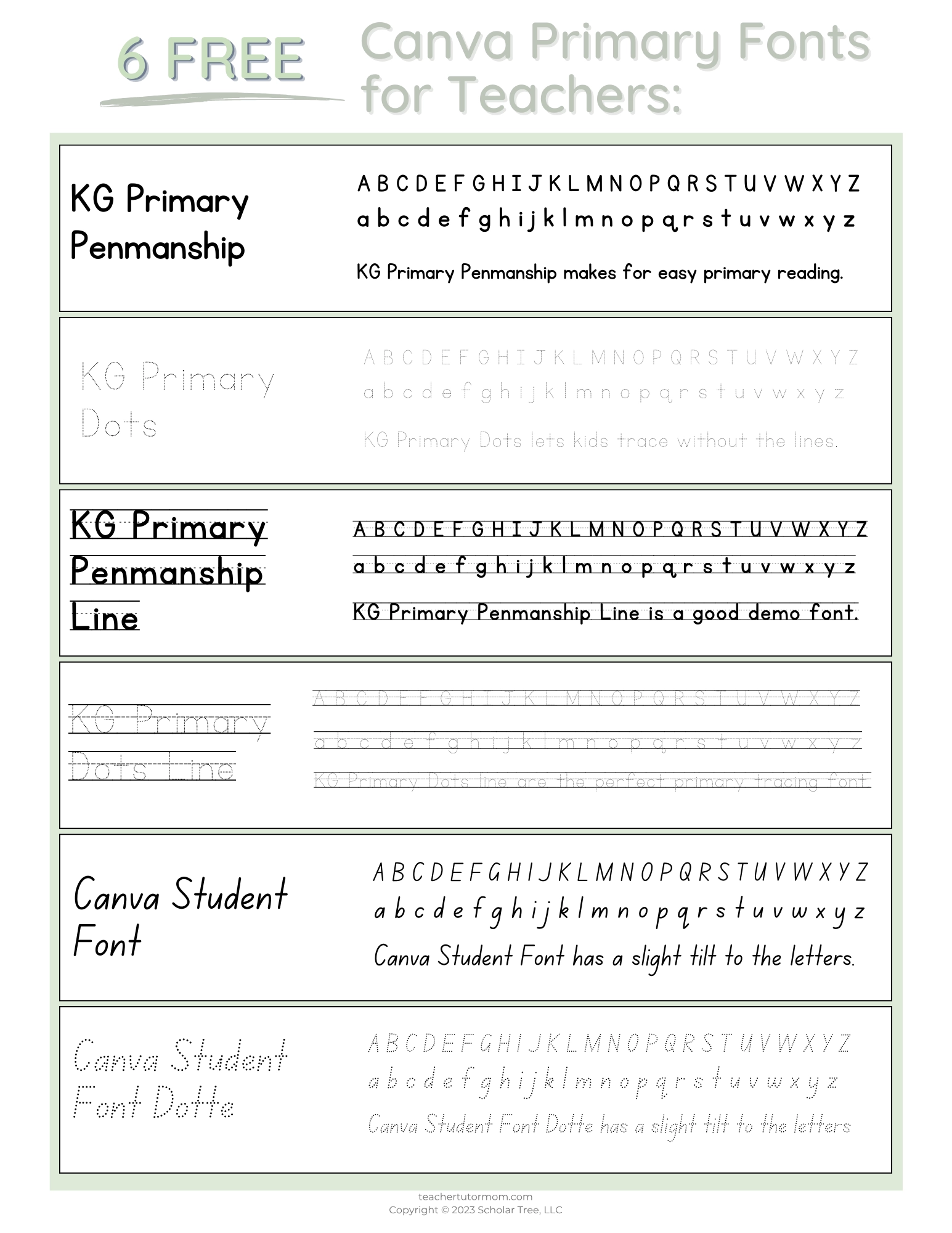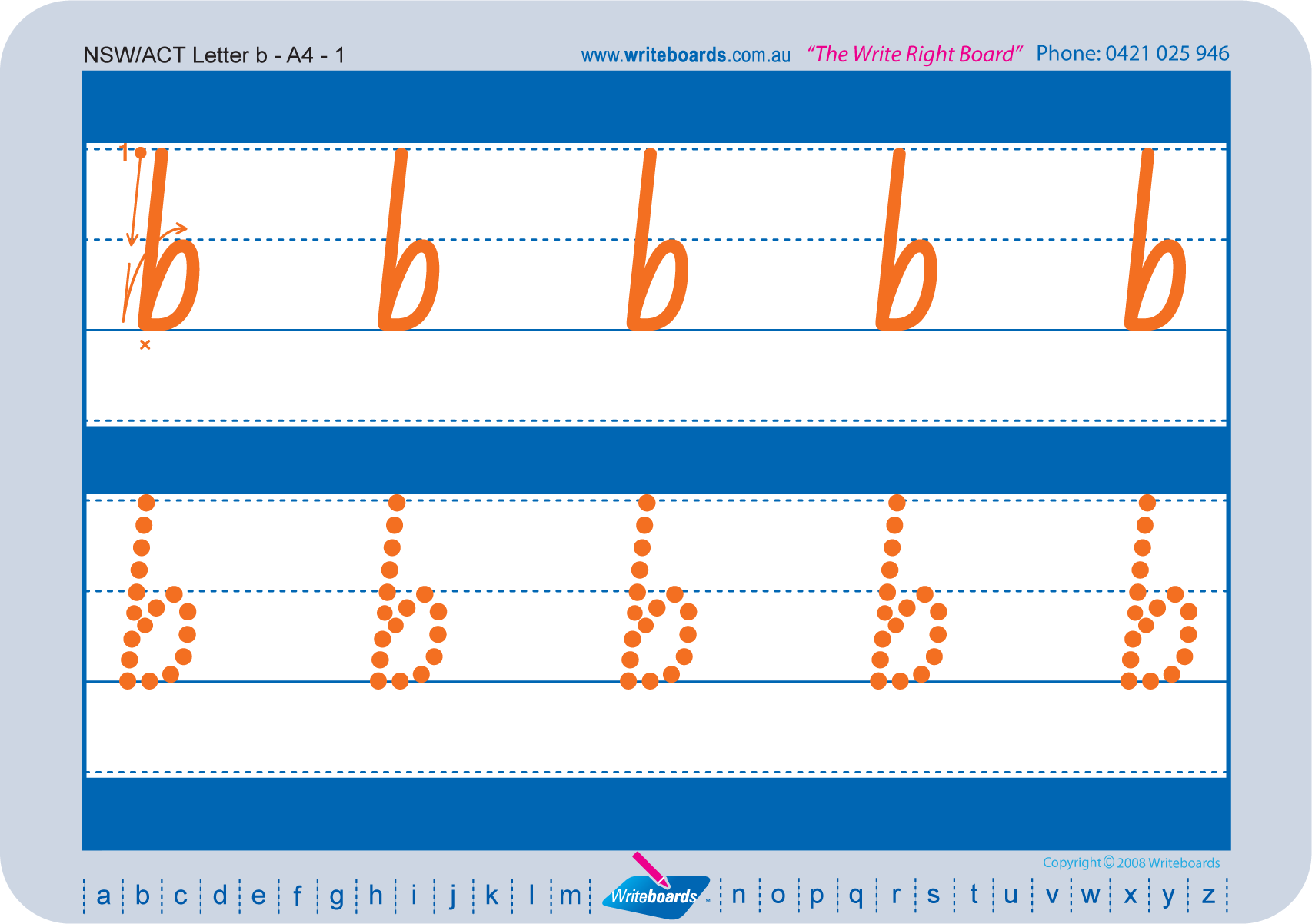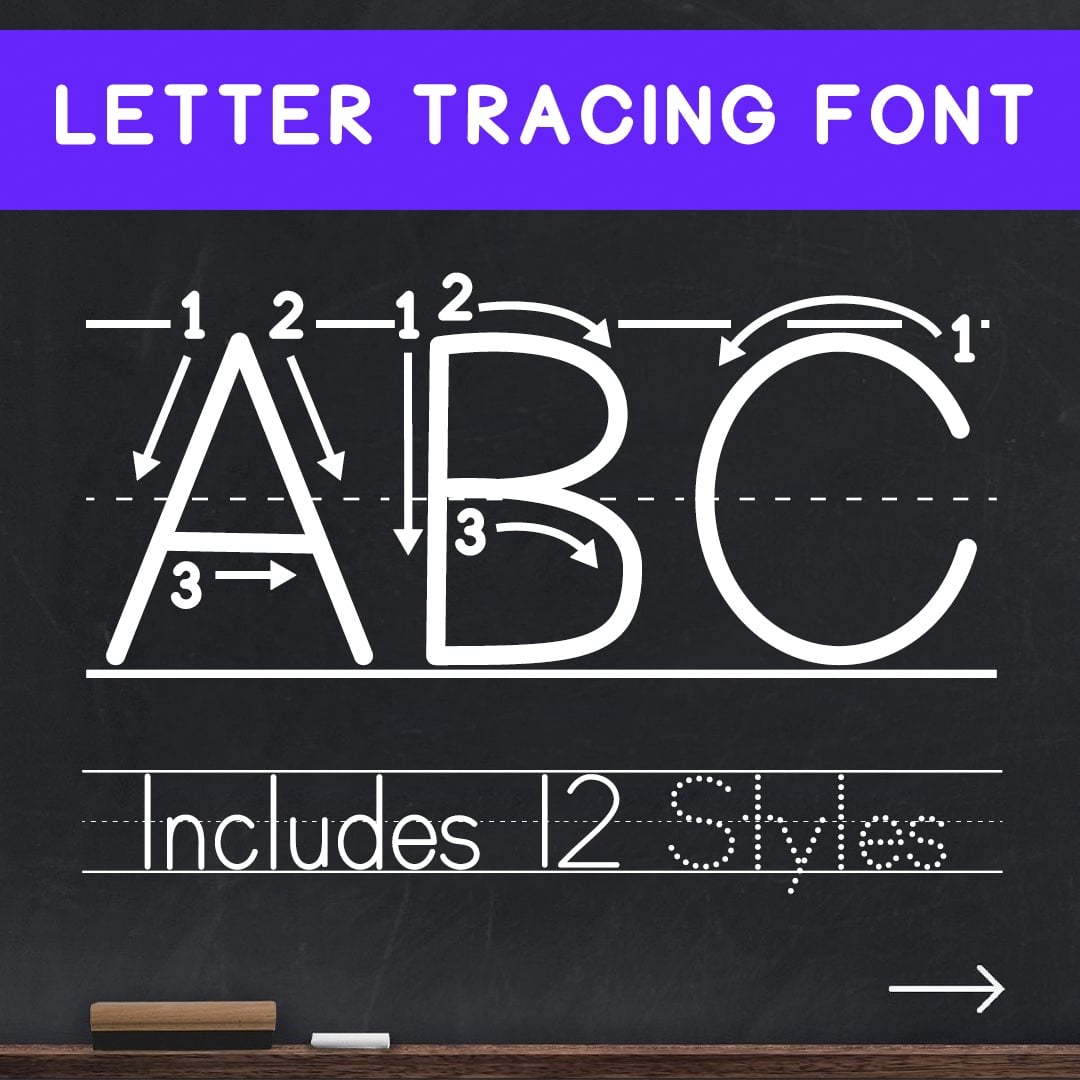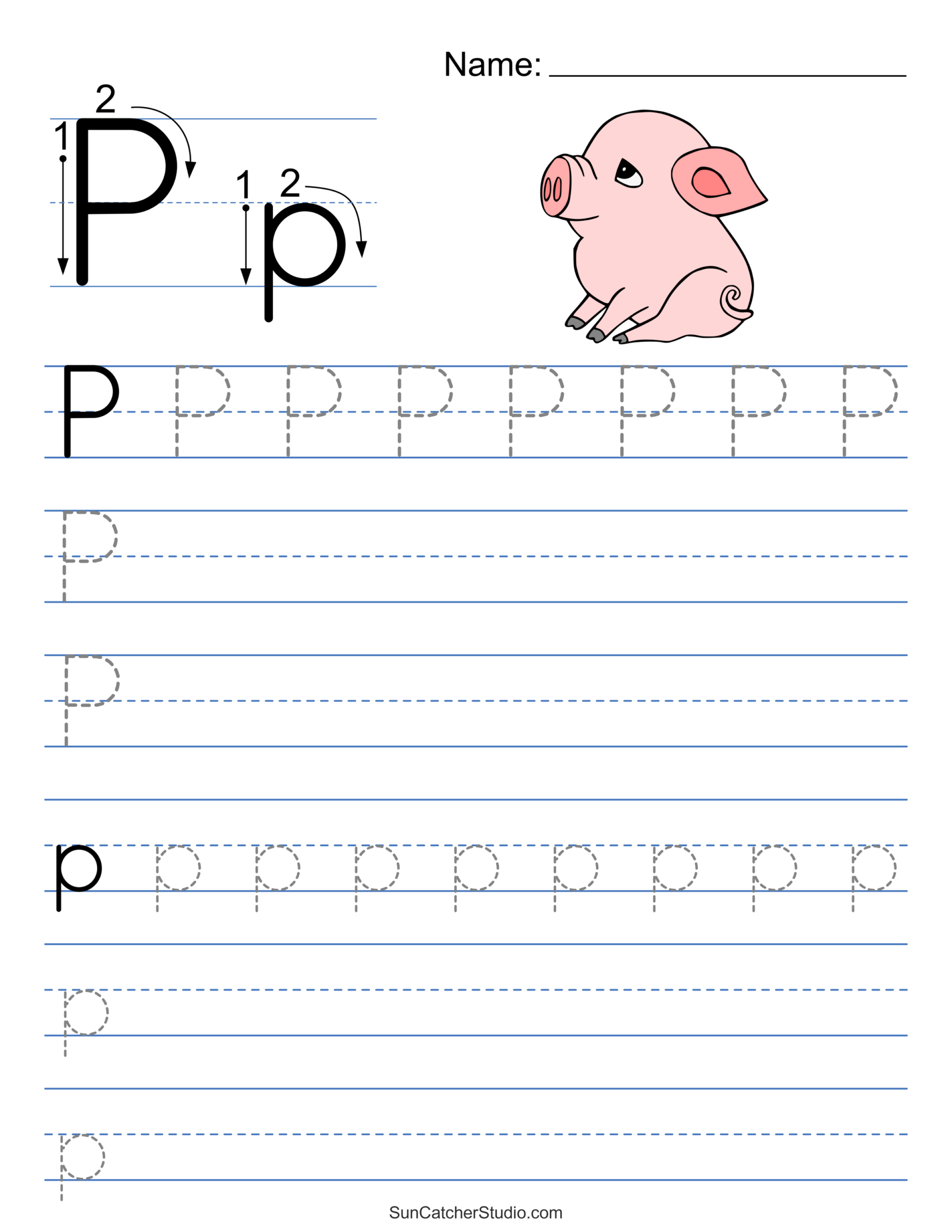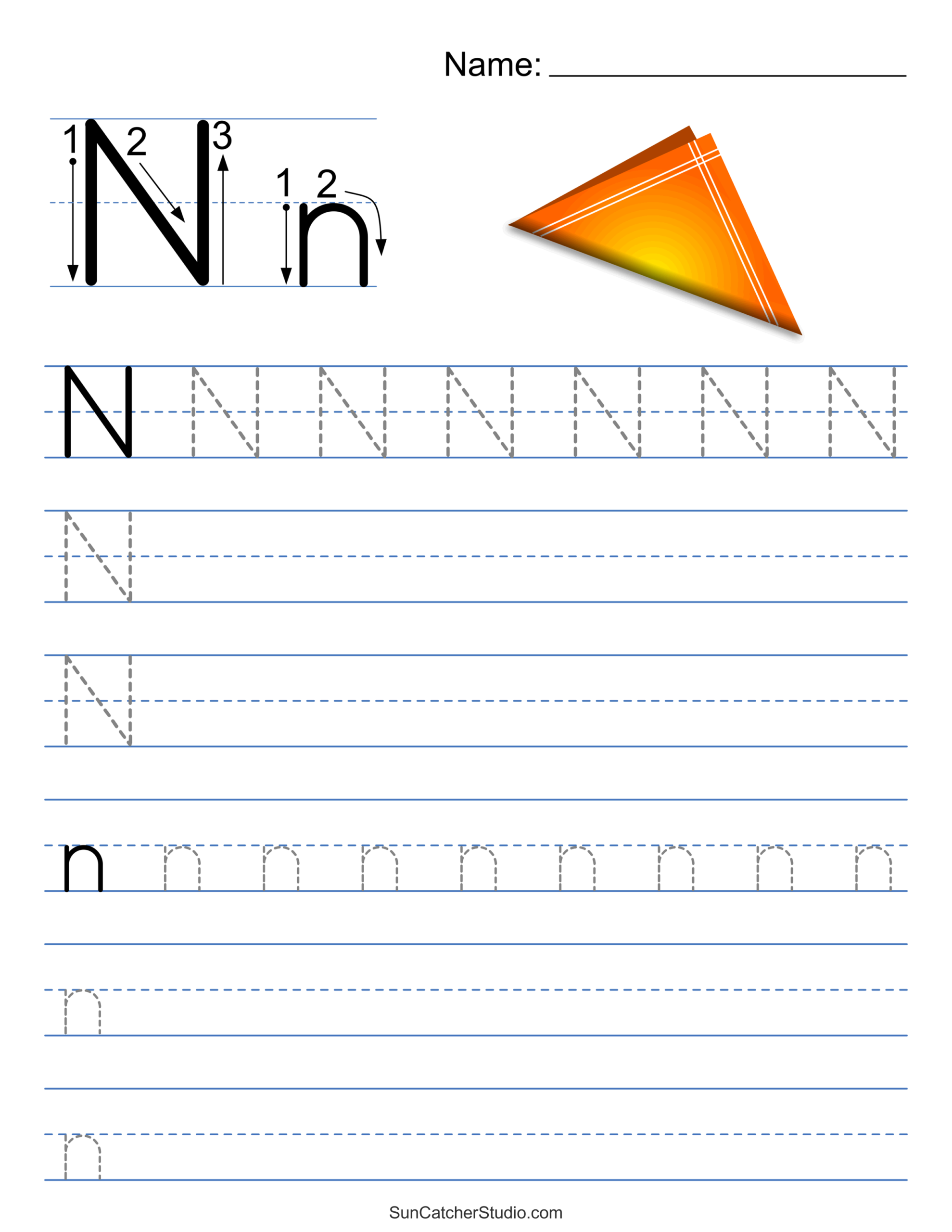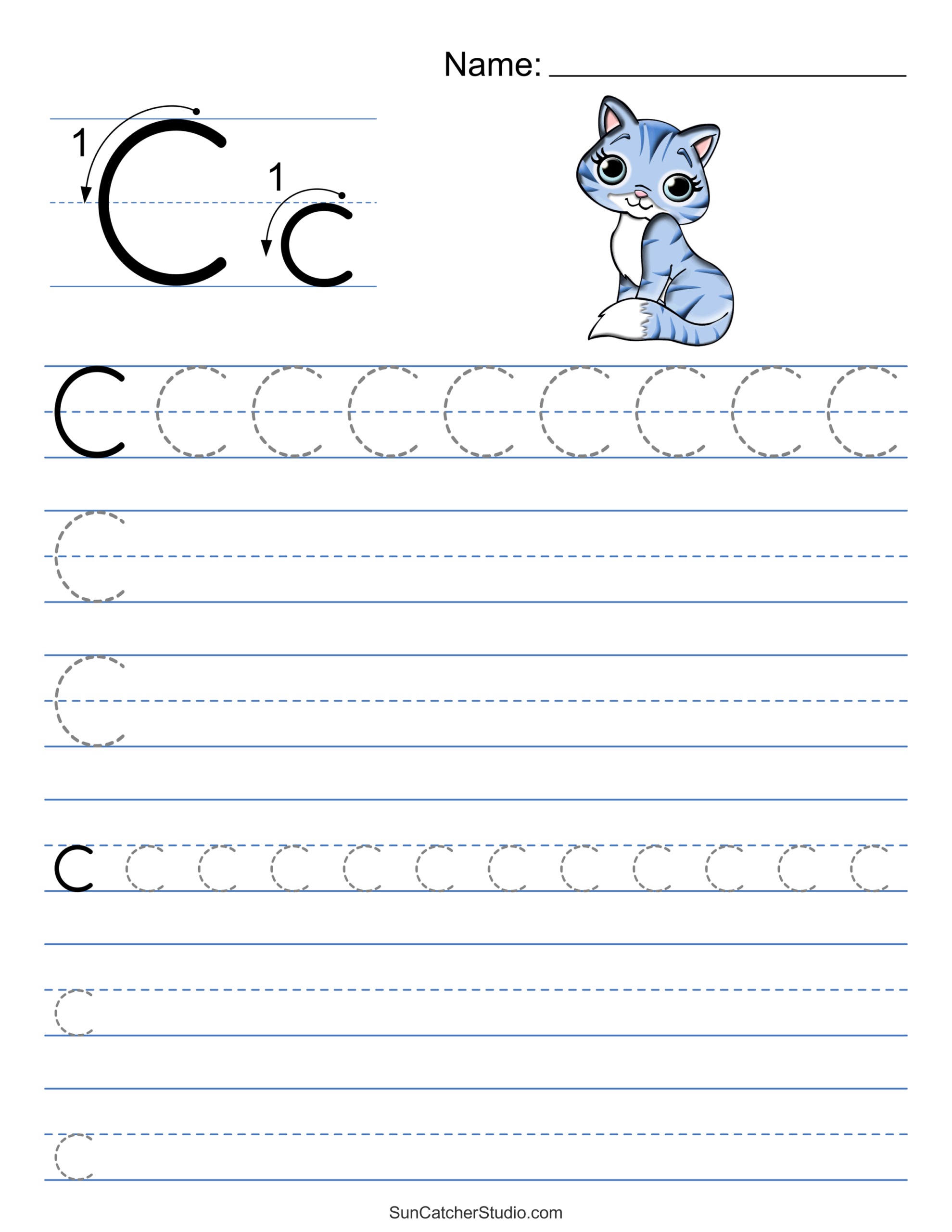
Free Tracing Font For Teachers
Teachers often seek creative resources to enhance their classroom experience. One popular tool is tracing fonts, which help students develop their writing skills in a fun and engaging way. These fonts can make learning more enjoyable for young learners.
Free tracing fonts for teachers are designed to support handwriting practice. They typically feature dotted letters that guide students in forming each character correctly. This visual aid is essential for building confidence in young writers.
Many websites offer a variety of free tracing fonts, allowing teachers to choose styles that best suit their classroom needs. From playful designs to more traditional styles, there’s something for every teaching approach. Customization options are often available as well.
Using these fonts in worksheets and activities can significantly enhance the learning experience. Teachers can create personalized materials that cater to different learning styles, making it easier for students to grasp writing concepts effectively.
Incorporating free tracing fonts into lesson plans not only aids in skill development but also adds an element of creativity to the classroom. By utilizing these resources, teachers can foster a love for writing among their students.
Exploring free tracing fonts opens up a world of possibilities for teachers and students alike. With the right tools, writing can become an exciting adventure that encourages creativity and learning in the classroom.